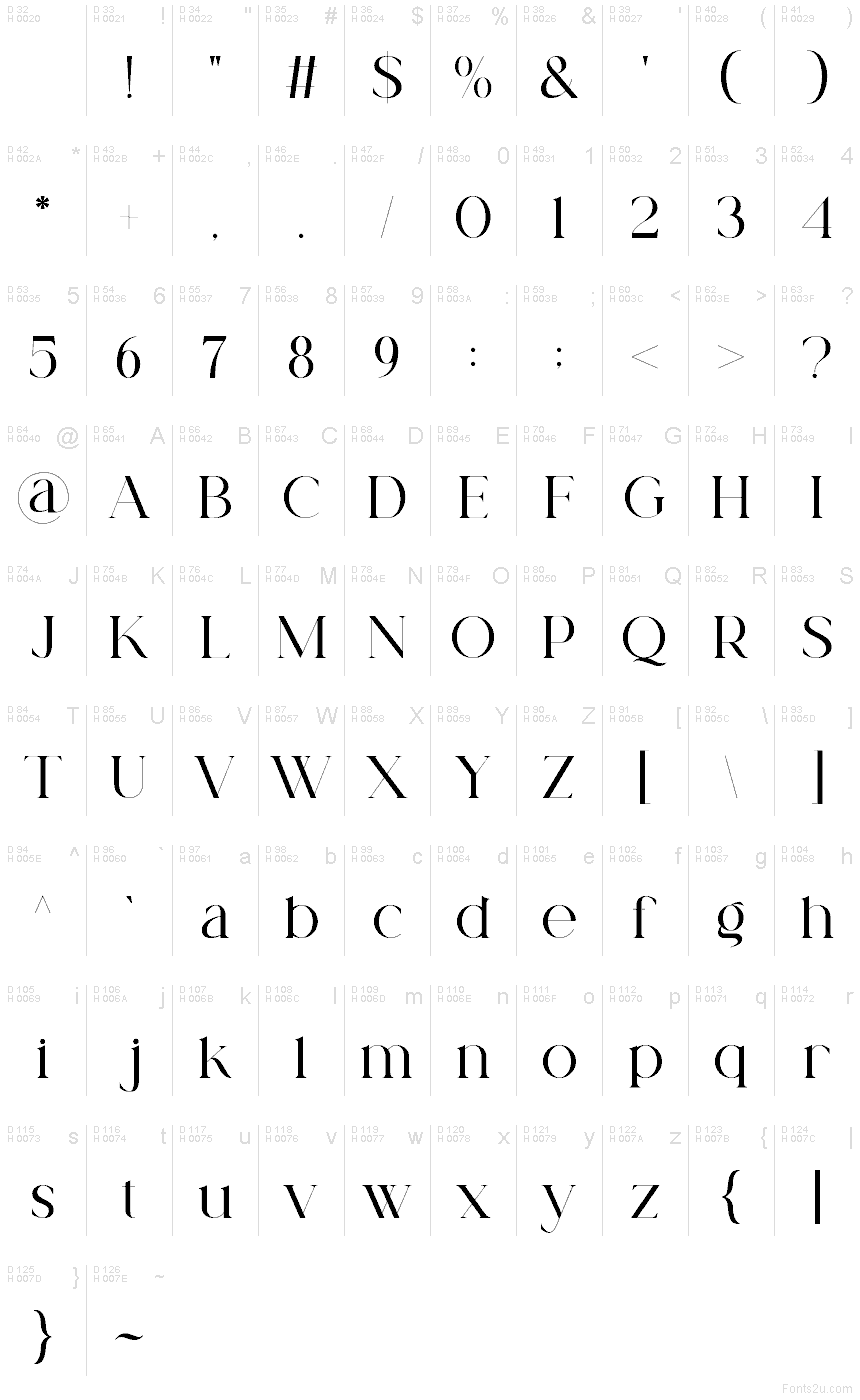
Rossile
Rossile font by Ermedia Studio is a free high-contrast serif font. Its defining move is the sculpted rhythm—silky curves that swell into generous bowls, then snap into knife-edge cuts. The result feels luxe and editorial without getting fussy, like ink laid with a steady hand. Letters lock together with a smooth cadence, giving headlines a polished, fashion-forward snap.
Using Rossile, your work shines on fashion branding, boutique logos, beauty packaging, editorial headlines, posters, luxury invitations, and social media promos. This free font loves big sizes and white space; let it breathe and it rewards you with drama and clarity. Pair it with a calm, neutral sans for body copy to keep the spotlight on those crisp, sculptural forms.